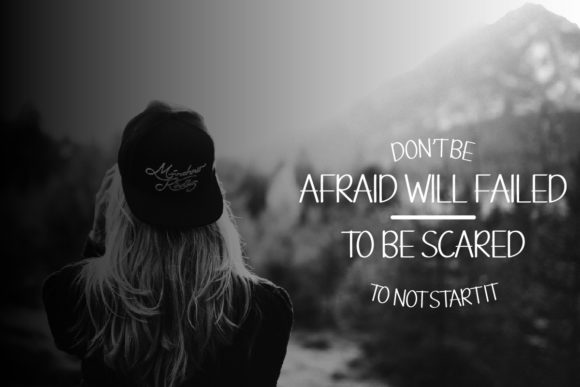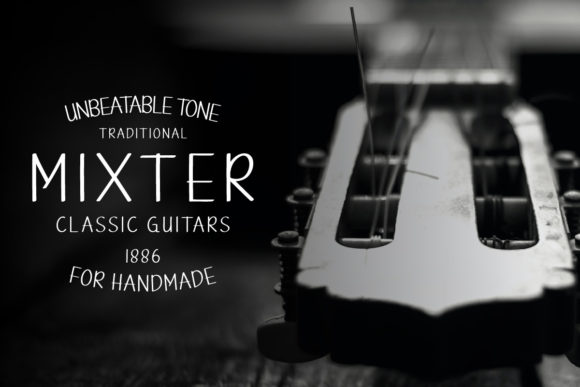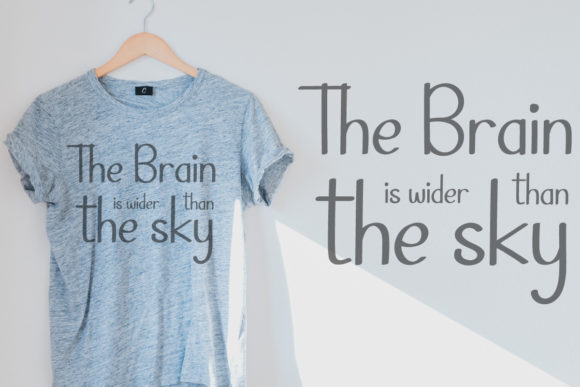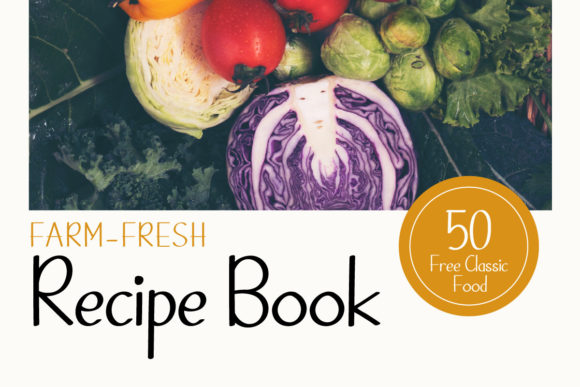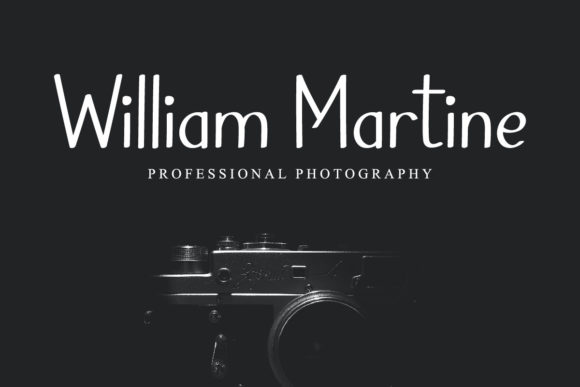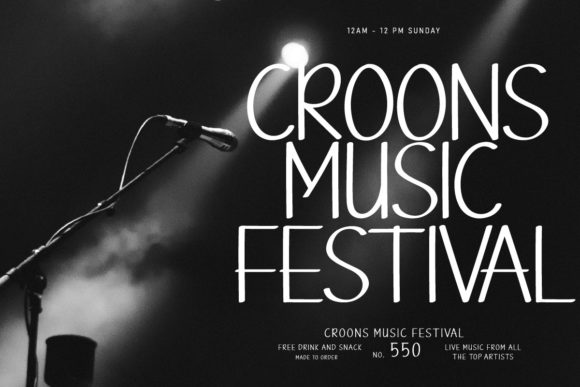
Unveiling the Elegance of Breaking Dawn Font: A Minimalist’s Dream
In the vast universe of typography, where fonts are the silent ambassadors of brand identity and design aesthetics, Breaking Dawn Font emerges as a beacon of minimalism and elegance. This sans serif font, characterized by its clean lines and unadorned simplicity, is rapidly becoming the go-to choice for designers and crafters looking to infuse their projects with a modern yet timeless appeal.
The Essence of Breaking Dawn Font
Breaking Dawn Font is more than just a typeface; it’s a design statement. Its minimalistic approach to typography doesn’t just speak of elegance; it screams versatility. Whether you’re working on a branding project, crafting a unique logo, designing an inviting website, or even creating engaging social media content, this font can be your reliable companion. Its neat sans serif design ensures that your message is conveyed with clarity and sophistication, making it an ideal choice for a wide array of creative projects.
Why Breaking Dawn Font Stands Out
So, what makes Breaking Dawn Font a standout in the crowded world of typography? Here are a few reasons why it’s capturing the hearts of designers and crafters alike:
- Versatility: Its clean and simple design makes it incredibly versatile. It can be used in both digital and print media, adapting seamlessly to various design requirements.
- Legibility: The font’s excellent legibility ensures that your message is communicated effectively, whether it’s used for headings, subheadings, or body text.
- Modern Appeal: Breaking Dawn Font embodies a modern aesthetic that can instantly elevate the look and feel of your designs, making them more engaging and contemporary.
- Easy to Pair: Its neutral appearance makes it easy to pair with other fonts, allowing for endless possibilities in terms of design combinations.
Adding Breaking Dawn Font to Your Creative Arsenal
Incorporating Breaking Dawn Font into your design projects is a straightforward process that can significantly enhance your creative output. Here are some tips on how to make the most of this elegant font:
- Branding: Use Breaking Dawn Font for your brand’s logo, marketing materials, and website to create a cohesive and sophisticated brand image.
- Web Design: Enhance your website’s user experience with this font, ensuring that your content is presented in a clear, readable, and stylish manner.
- Social Media Graphics: Stand out on social media platforms by using Breaking Dawn Font in your graphics, posts, and stories, giving your content a professional edge.
- Crafting and DIY Projects: For crafters, this font can add a personal touch to handmade cards, journals, and other DIY projects, making them more personalized and appealing.
Breaking Dawn Font is a testament to the power of minimalism in design. Its neat sans serif appearance, coupled with its versatility and modern appeal, makes it an invaluable asset for designers and crafters looking to create standout projects. By incorporating Breaking Dawn Font into your creative workflow, you’re not just choosing a font; you’re embracing a design philosophy that prioritizes elegance, clarity, and impact. So, why wait? Unlock the potential of Breaking Dawn Font and watch your designs transform into captivating visual experiences.